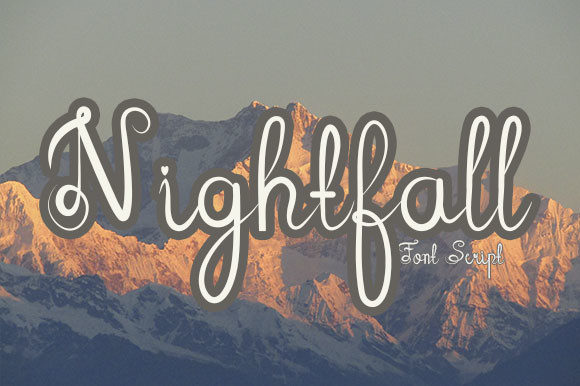
Prepare to be enchanted by Nightfall, a script font that will ignite your imagination and captivate your audience. Its exquisite curves and delicate strokes dance across the page, painting a picture of elegance and whimsy.
Nightfall is more than just a font; it's an invitation to embark on a creative journey. Its balanced characters harmonize seamlessly with any design, allowing your ideas to shine brighter than ever before.
Picture your brand's logo adorned with Nightfall's graceful script, exuding an air of sophistication and charm. Imagine your website's headlines transformed into captivating works of art, drawing visitors in with its irresistible allure. And let your social media posts come alive with Nightfall's playful spirit, capturing hearts and sparking conversations.
With Nightfall, the possibilities are endless. Its versatility knows no bounds, making it the perfect font for any creative endeavor. From whimsical illustrations to enchanting invitations, from elegant packaging to heart-stirring love letters, Nightfall will add a touch of magic to every project you undertake.
Embrace the enchanting world of Nightfall, where your creativity will soar to new heights. Let its graceful strokes inspire you, its playful spirit ignite your imagination, and its versatility empower you to create designs that leave a lasting impression.
Don't just download a font, embark on an extraordinary creative journey with Nightfall. Your ideas deserve to be adorned with elegance and whimsy. Nightfall is the key to unlocking your creative potential and captivating the world with your designs.